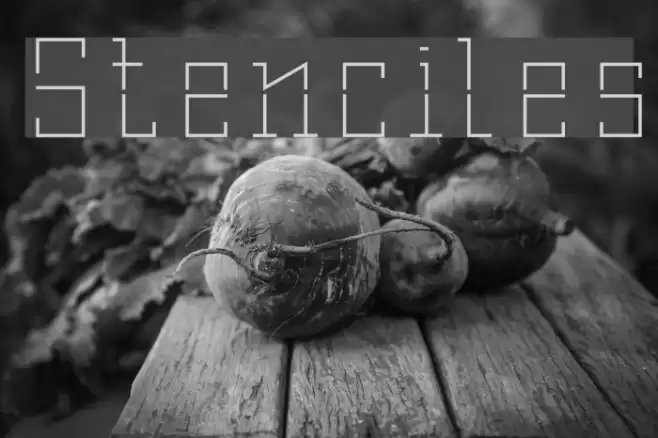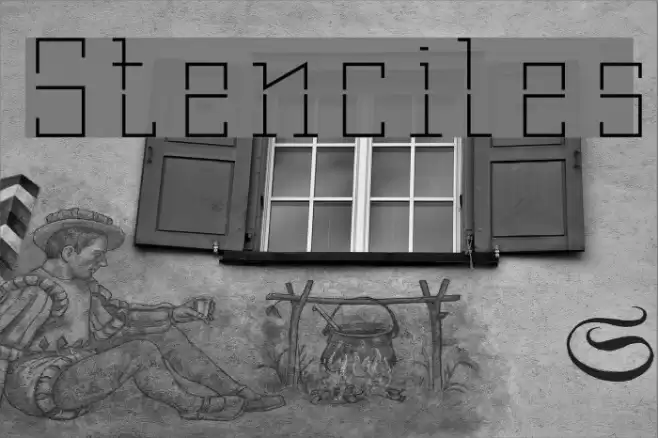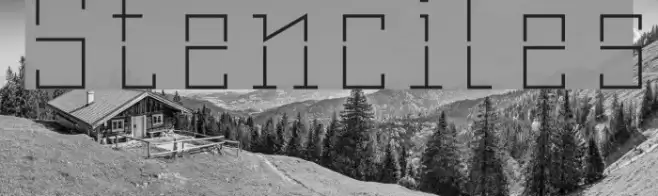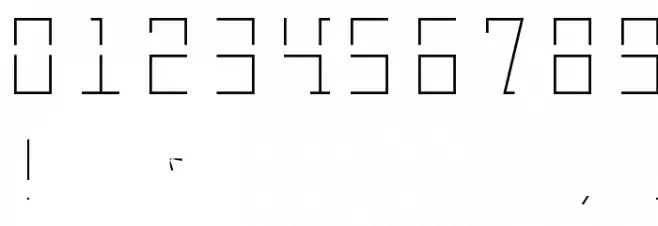
Stenciles Font
Stenciles Description
This font features a distinctive stencil design characterized by its geometric, block-like structure. Each letter is composed of straight lines and sharp angles, creating a mechanical and industrial feel. The uppercase and lowercase letters maintain a consistent style, with the uppercase being slightly taller and more pronounced. The numbers follow the same geometric pattern, ensuring uniformity across all characters. The special characters are designed to match the overall aesthetic, making this font suitable for projects that require a modern, technical look.
A geometric stencil font with a mechanical, industrial style from Uncategorized fonts.